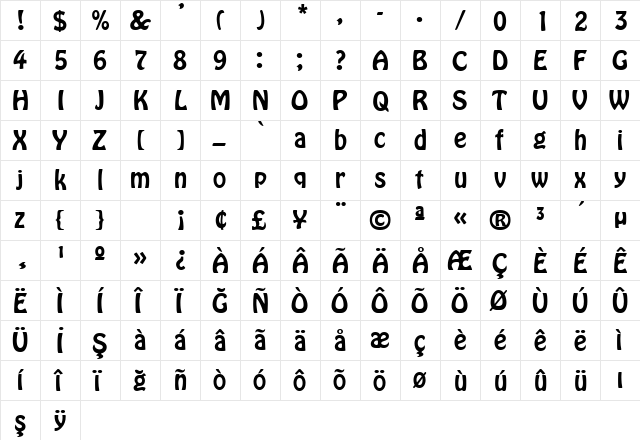
TR Homeward Bound Plain
Design Context for TR Homeward Bound Typeface
TR Homeward Bound offers clean, dependable letterforms without strong stylistic allegiance, making it a practical choice for designers who need flexibility.